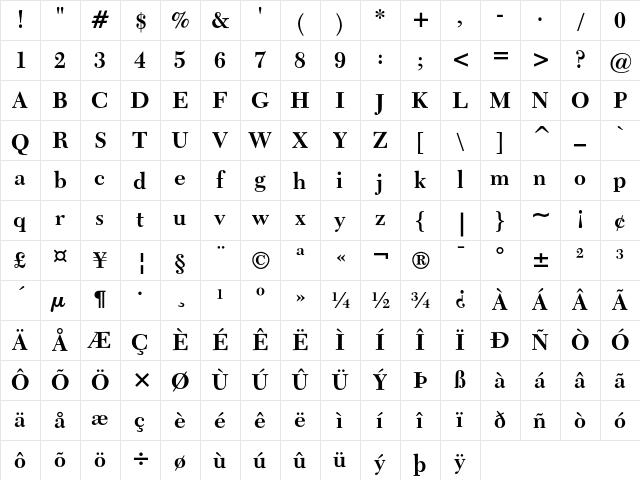
Transitional 511 Bold
Complete Transitional 511 Bold glyph index. Displaying only characters natively supported by Transitional 511 Bold font.
Design Context for Transitional 511
Transitional 511 is a composed and adaptable typeface that performs quietly and consistently across a wide range of design contexts. Its bold stroke weight gives it real presence on the page.